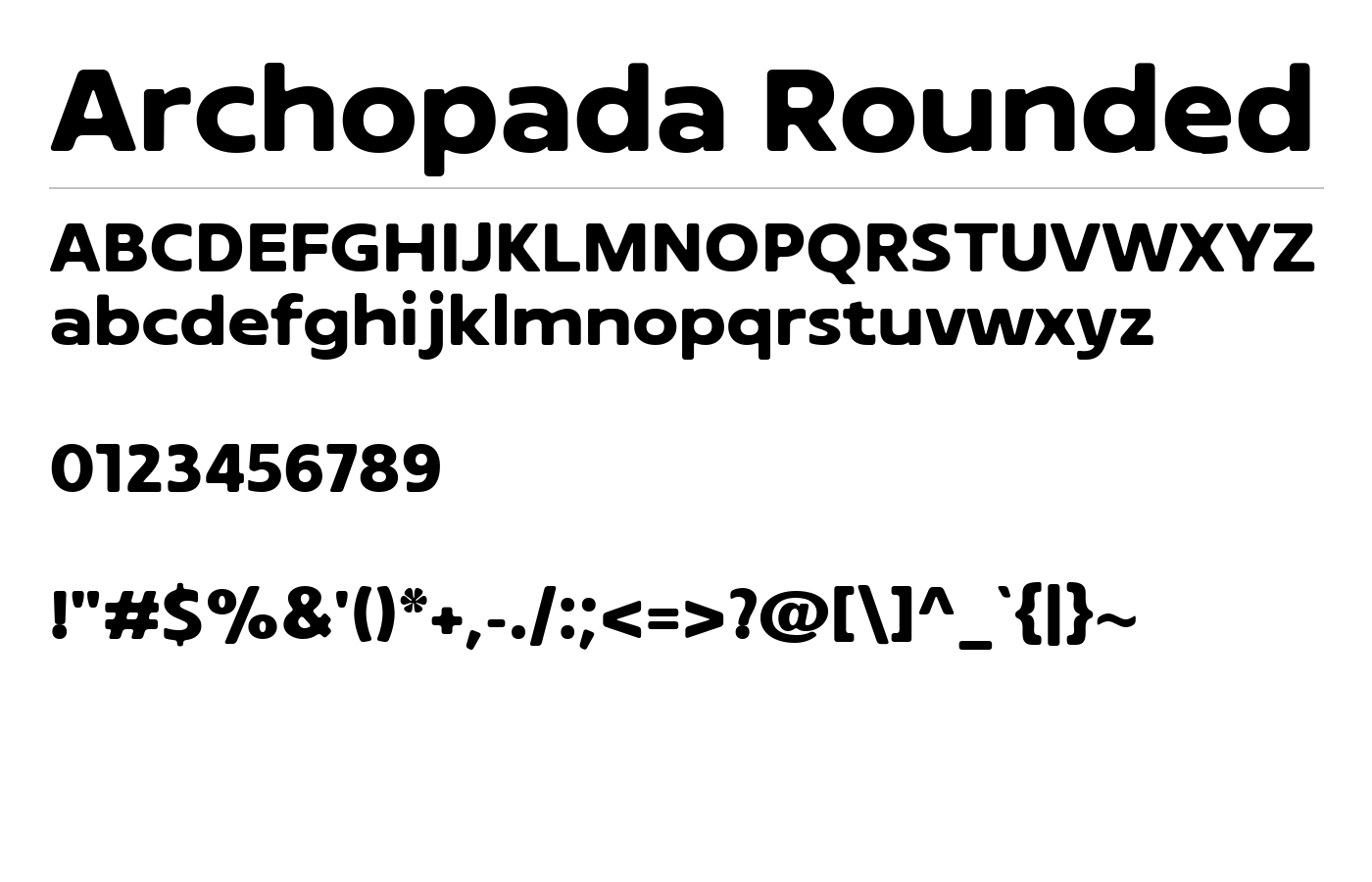
Archopada Rounded is a bold, rounded sans-serif font characterized by its smooth, friendly curves and uniform stroke weight, giving it a warm, approachable feel. With its clear, legible letterforms and moderate x-height, it works wonderfully for playful yet professional branding, children's products, and modern headlines. This font stands out in logos, posters, and websites where a bold, cheerful presence is desired.
Archopada Rounded Font
About Archopada Rounded Font
| Font family | Archopada Rounded Font |
| Designer | Wildan Suprian Syah |